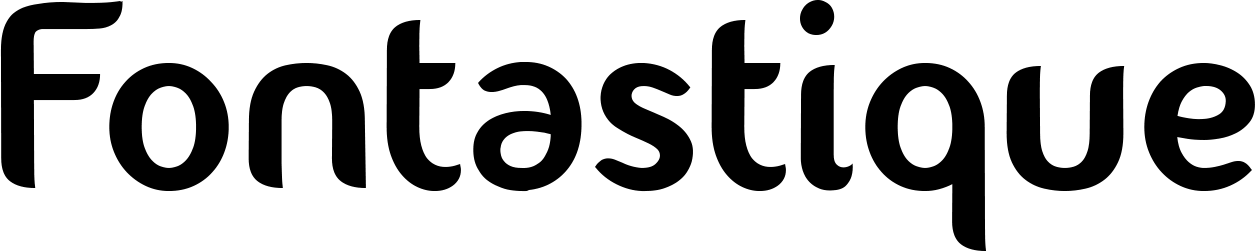
Fontastique Font
Fontastique font with smooth edges of the characters can be an excellent choice for friendly and modern designs. If this sans serif font is used along with the script fonts, it puts a great plan to attract the audience.…
Fontastique font with smooth edges of the characters can be an excellent choice for friendly and modern designs. If this sans serif font is used along with the script fonts, it puts a great plan to attract the audience.
We suggest using this sans serif font to design friendly themes such as birthday greetings, postcards, and notebook designs because your creation looks different from your previous work.
“Fontastique” Font